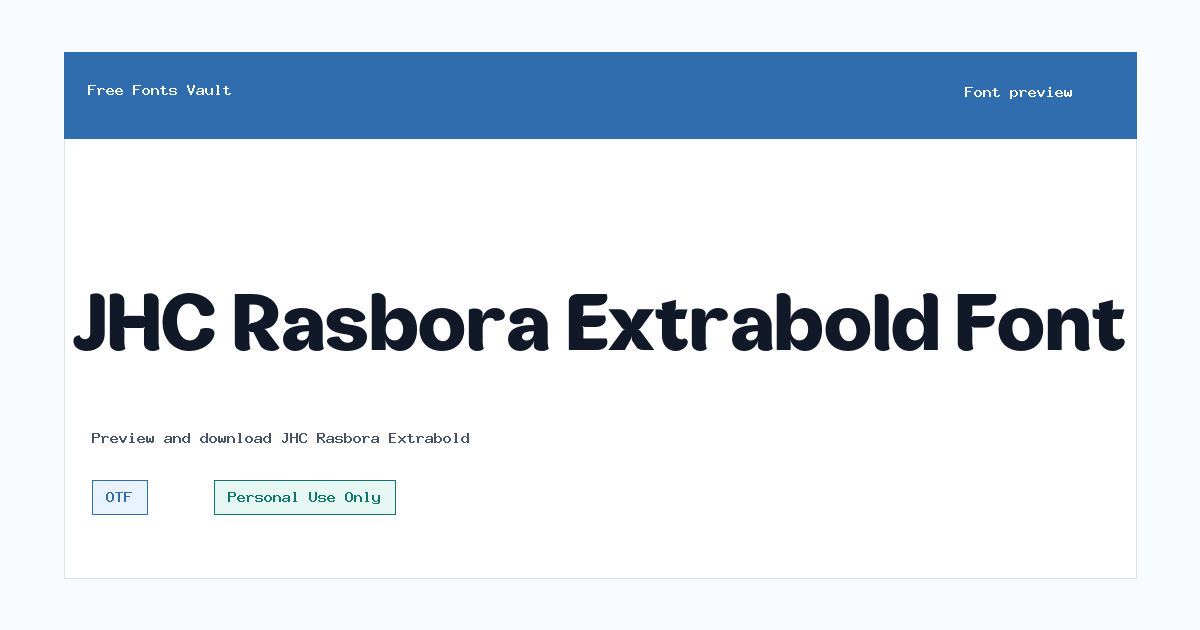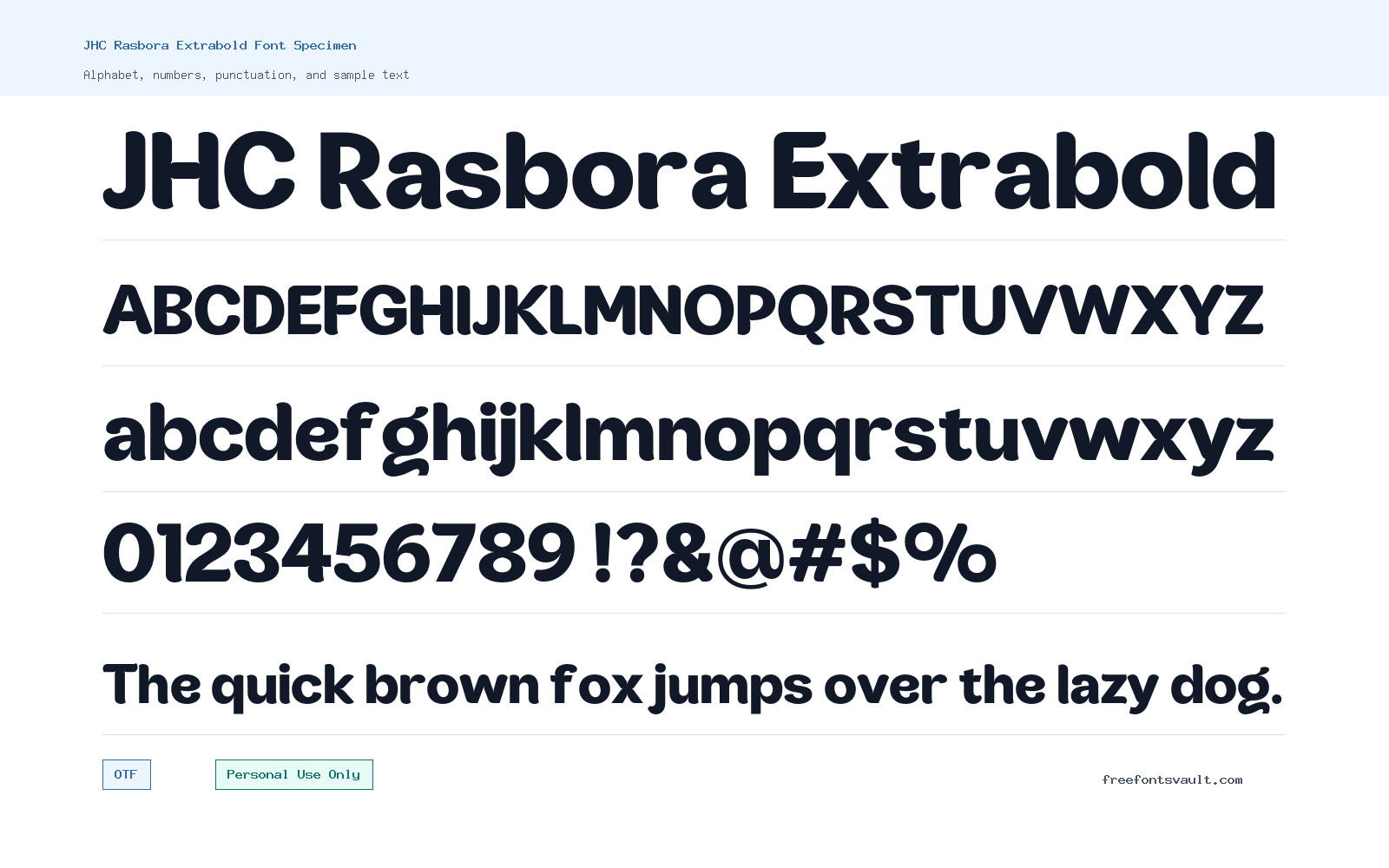
JHC Rasbora Extrabold
JHC Rasbora Extrabold Font
JHC Rasbora Extrabold font.
JHC Rasbora Extrabold is a heavy sans serif display font with a strong, compact presence. It is best treated as a headline and branding-style font, not as a long-reading text face.
About JHC Rasbora Extrabold
JHC Rasbora Extrabold gives short words a firm, confident shape. The extra-bold weight makes letters feel solid on the page, which works well when you need a title, logo draft, poster line, social graphic, or web mockup to stand out quickly. Because the style is normal rather than italic or decorative, it can stay clean while still feeling forceful. Use it when the message is short and the type needs to carry visual weight on its own.
For best results, test the font in the preview with the exact words you plan to use. Extra-bold sans serif fonts can look very different depending on letter combinations, spacing, and size. Try uppercase titles, short lowercase phrases, numbers, and punctuation before using it in a finished layout. It should be especially useful for display typography such as product-style headings, badge text, YouTube thumbnails, event posters, title cards, and bold menu or landing-page mockups. Avoid using it for paragraphs, captions, or dense body copy, because the heavy weight can reduce comfort in long reading.
• Extra-bold sans serif look suited to display use and short, high-impact text.
• Normal style with a bold 700 weight value, making it practical for strong headlines.
• Clean, non-italic letter style that can work in posters, logo sketches, and interface mockups.
• Single regular variant, so the design is simplest to use as a focused display choice.
• Logo concepts and brand-name mockups where a compact, heavy sans serif voice is useful.
• Posters, flyers, banners, and event graphics that need a clear headline.
• Website hero text, landing-page mockups, app headers, and bold navigation experiments.
• Social media graphics, thumbnail titles, quote cards, and promotional images.
• Packaging-style mockups, badge lettering, stickers, and short label designs.
JHC Rasbora Extrabold is credited to designer Anwar Patihan and foundry Jehoo Creative.
Pair JHC Rasbora Extrabold with a quieter sans serif or a readable serif for supporting text. Let Rasbora handle the main wordmark, headline, or title, then use the companion font for descriptions, dates, buttons, and smaller details. Keep spacing generous around the headline so the bold letterforms do not feel crowded. In logo work, test both black-on-white and white-on-dark versions, and check the design at small sizes before deciding it is ready.
What kind of font is JHC Rasbora Extrabold?
It is a bold sans serif display font. It is most useful for short text such as headlines, logos, posters, thumbnails, and mockups.
Is this a good font for body text?
It is not the best choice for long paragraphs. The heavy weight is better for titles and short phrases. Use a lighter, more readable font for body copy.